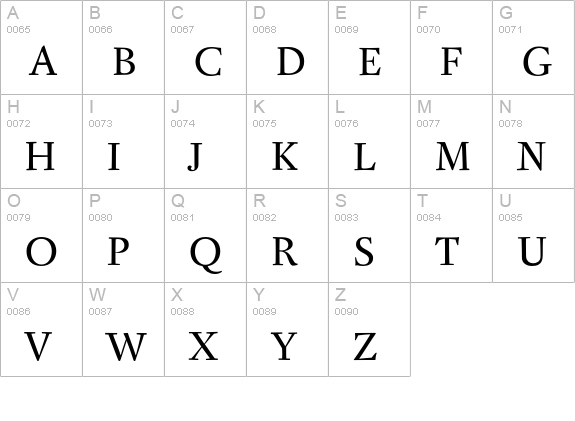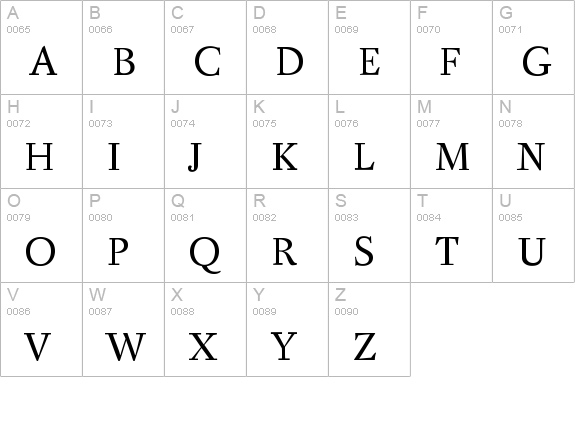
AntiqueAncienne-Regular Font Details
AntiqueAncienne-Regular is the standard, neutral variant in the AntiqueAncienne typeface family \xE2\x80\x94 well suited to general body text, paragraphs, and standard typographic work.
AntiqueAncienne-Regular is a timeless and elegant font that exudes a classic charm with its vintage appeal. This font captures the essence of antique typography, making it perfect for projects that require a touch of old-world sophistication. Its intricate details and graceful curves add a sense of nostalgia and refinement to any design. What makes AntiqueAncienne-Regular even more appealing is that it is available for free download at FontsMarket.com. This means you can easily access this beautiful font and incorporate it into your creative projects without any cost. Whether you're working on invitations, branding, or any other design project, AntiqueAncienne-Regular is sure to elevate your work with its distinctive and historic aesthetic. Download this exquisite font today and add a touch of timeless elegance to your designs.